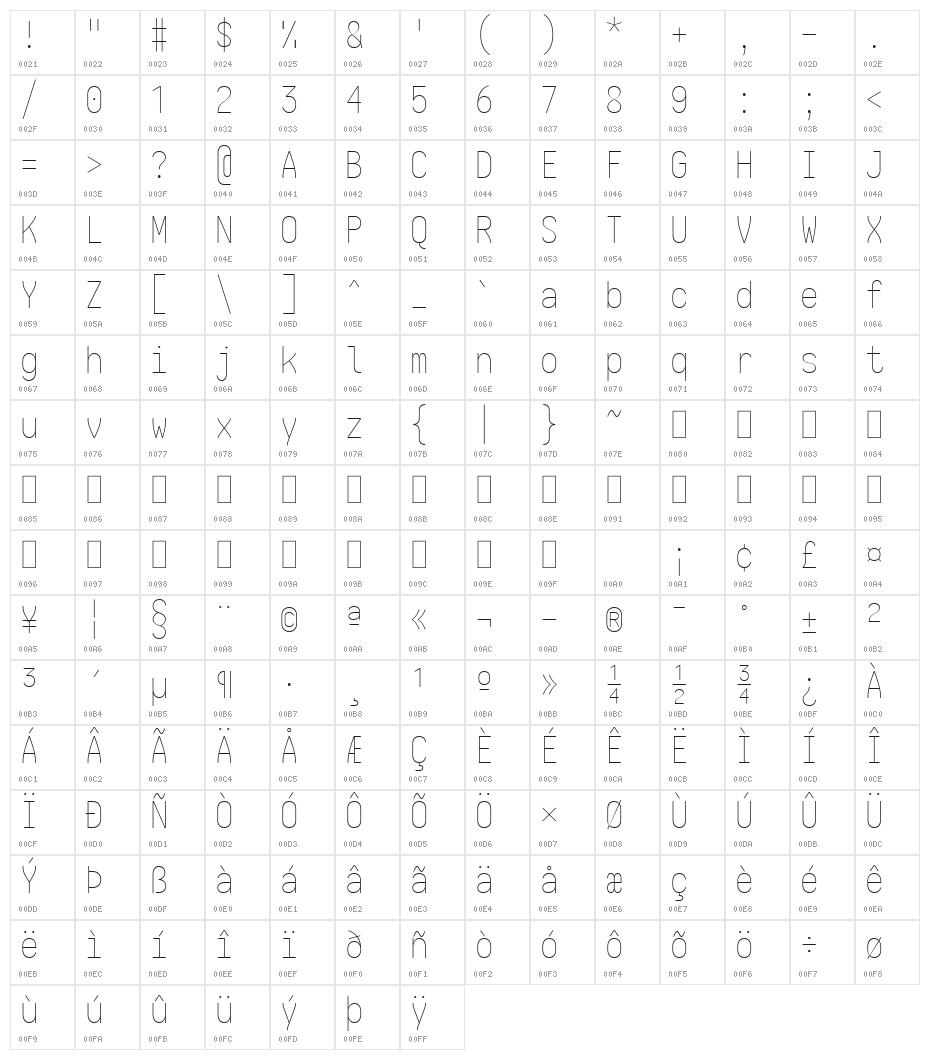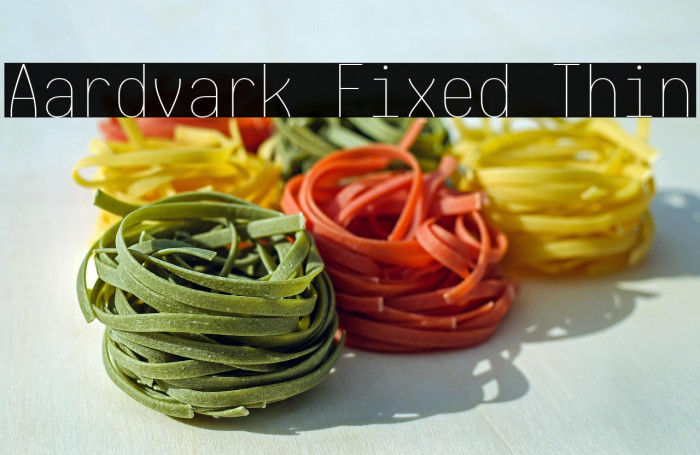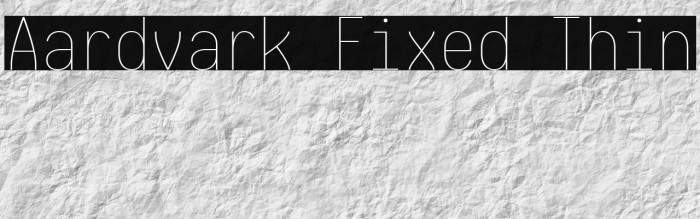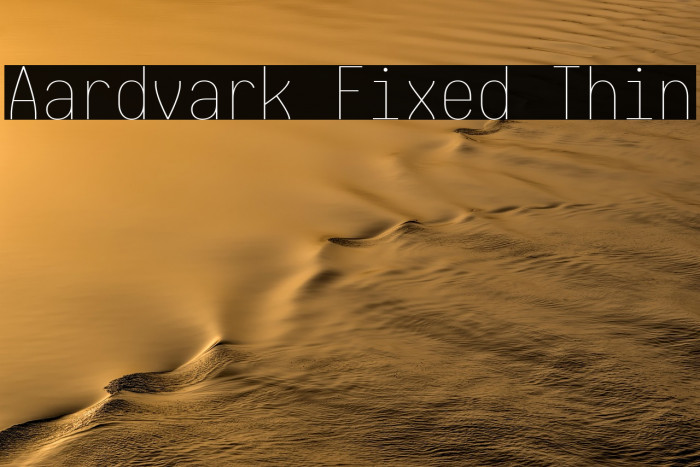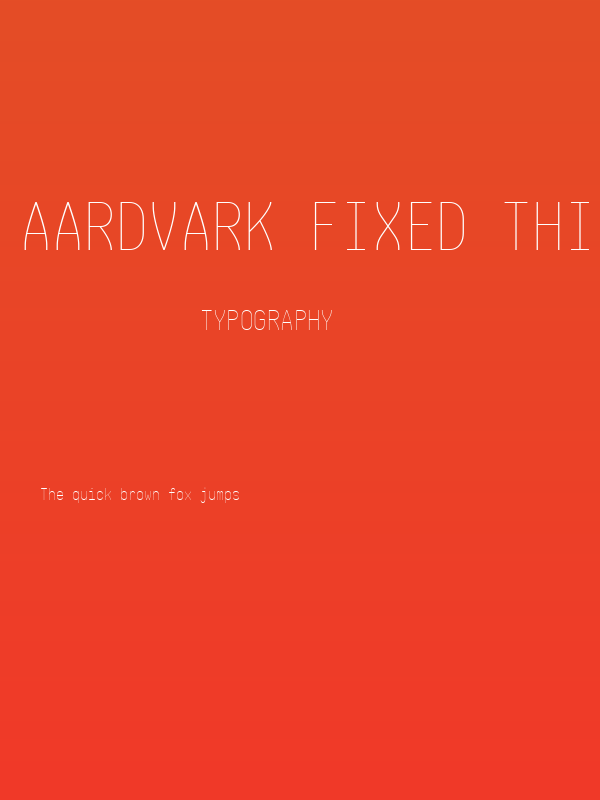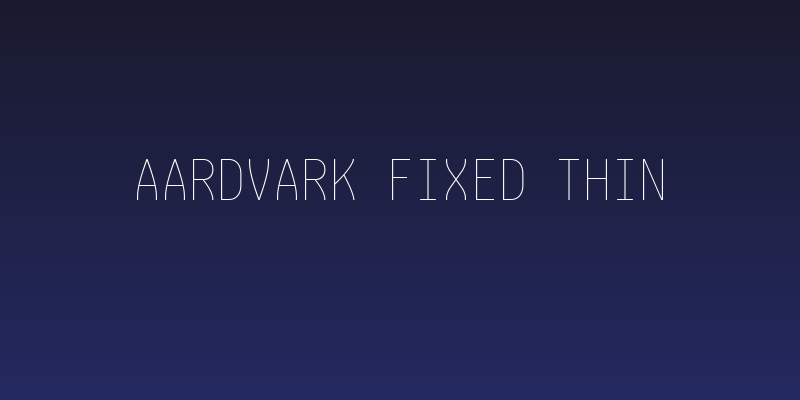
Aardvark Fixed Thin Font
Aardvark Fixed Thin Description
This font features a clean, minimalist design with a monospaced structure. Each character is evenly spaced, providing a uniform appearance across all letters and numbers. The thin strokes give it a light and airy feel, making it ideal for modern and contemporary designs. The uppercase and lowercase letters maintain a consistent height, enhancing readability. The numerals are clear and distinct, while the special characters are simple yet effective. This font's simplicity and clarity make it versatile for various applications.